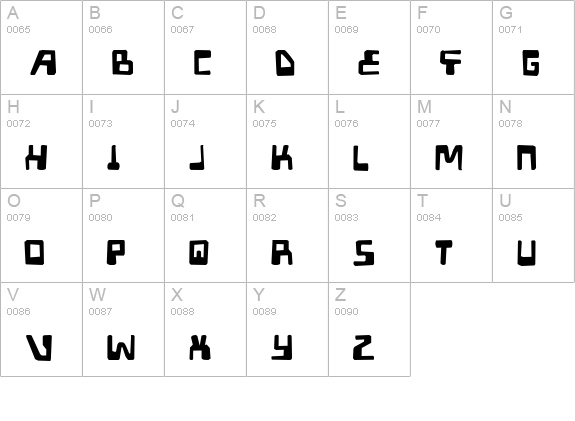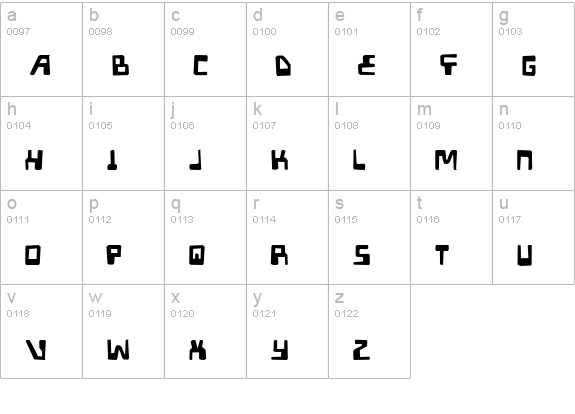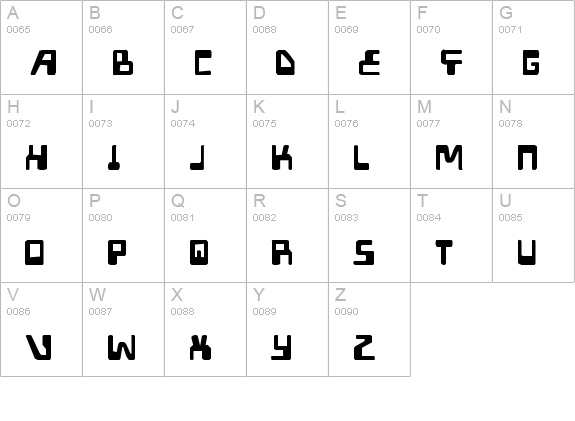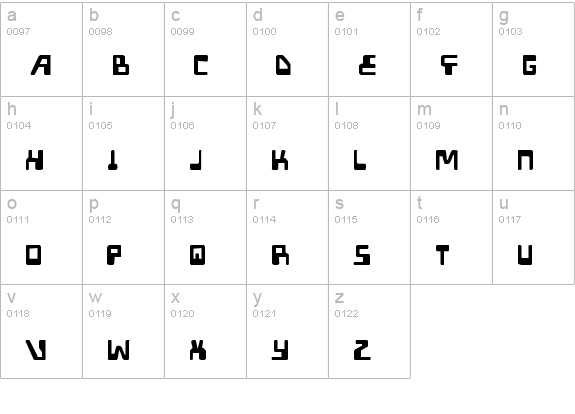
XPED Distressed Font Details
XPED Distressed font is a unique and eye-catching typeface that exudes a sense of edgy, distressed style. Its rugged and worn appearance adds a touch of character and individuality to any design project. The letterforms feature a distressed texture, giving the font a weathered and vintage look that is perfect for projects seeking a bold and expressive aesthetic. This font is ideal for creating impactful headlines, posters, logos, and other design pieces that require a touch of roughness and personality. Whether you're working on a grunge-inspired design or simply looking to add a bit of edge to your project, XPED Distressed font is sure to make a statement. Best of all, XPED Distressed font is completely free to download at FontsMarket.com, making it easily accessible for designers and creatives looking to enhance their work with a touch of distressed charm. Don't miss out on this fantastic font that will add a unique flair to your projects!